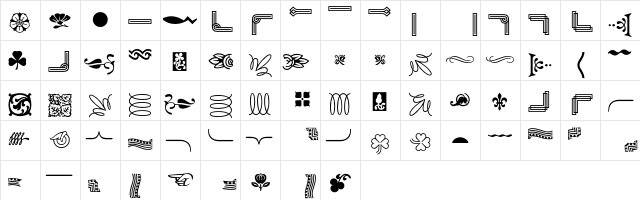
BordersOrnaments P06 Free Font
BordersOrnaments P06
Style: P06
BordersOrnaments Family
BordersOrnaments P06
Design Context for BordersOrnaments
BordersOrnaments is built around its visual character rather than neutral utility - its distinctive forms are designed to make an impression at display sizes.